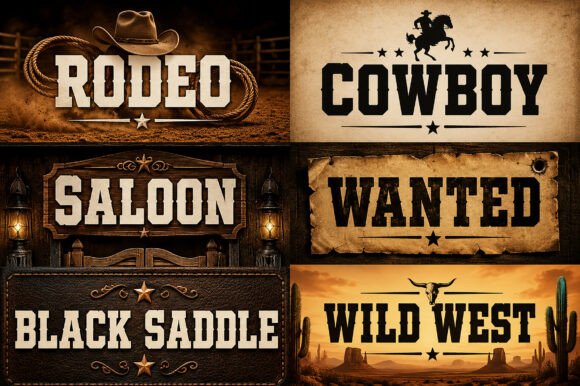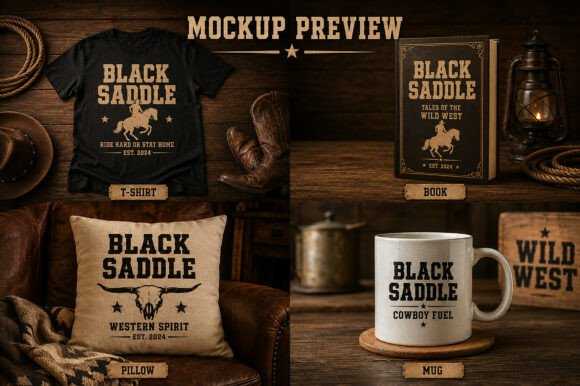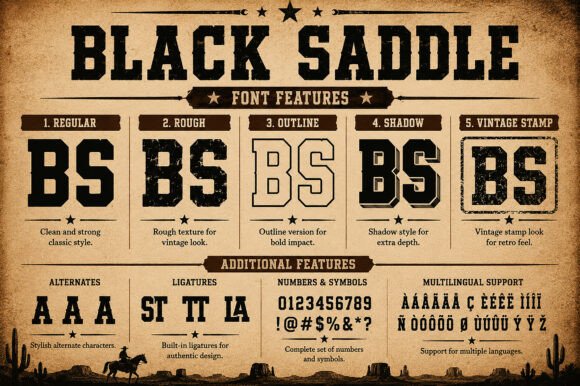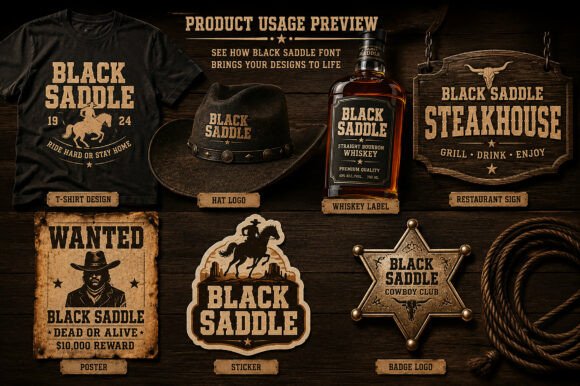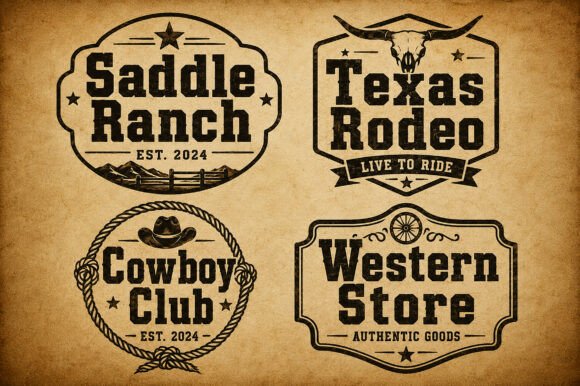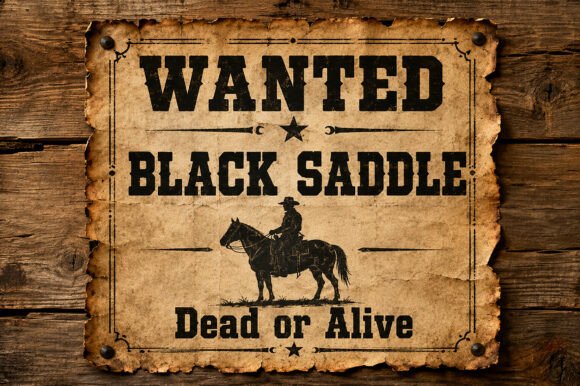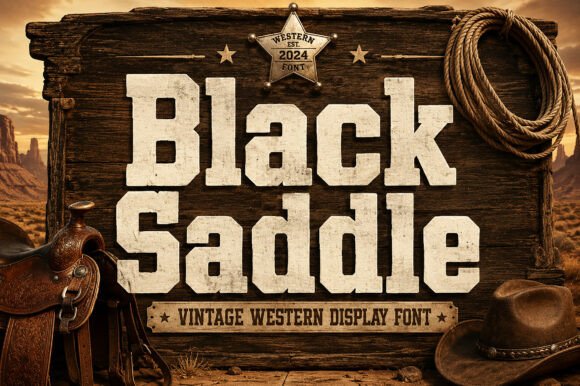
Ride into the Frontier of Bold Design with Black Saddle Font
Are you looking for a typography that screams ruggedness, adventure, and boldness? Look no further than the Black Saddle font, a heavy-duty vintage Western display font that’s built for maximum impact. Inspired by classic wild west saloon signs, cowboy heritage, and wood-carved typography, this typeface is perfect for designers and crafters who want to add a touch of timeless grit to their projects.
The Inspiration Behind Black Saddle
Black Saddle font draws its inspiration from the American Wild West, where saloon signs, cowboy boots, and rugged landscapes reigned supreme. The font’s chunky block silhouette and sharp, angular western spurs are reminiscent of the classic typography found on old west signs, while its cracked, weathered texture mimics the look of aged leather and sun-bleached desert wood.
A Font that Commands Attention
Black Saddle font features a massive visual weight and high-contrast structural lines, making it a typeface that commands attention instantly. Its bold design is perfect for headings, titles, and signage, where you want to make a statement and grab people’s attention. Whether you’re designing a logo for a western clothing line, creating signage for a rustic steakhouse, or packaging a country music album, Black Saddle font is the perfect choice.
Perfect for Western-Inspired Projects
Black Saddle font is the ultimate creative asset for designers and crafters working on western-inspired projects. Its rugged, bold design makes it perfect for:
- Western clothing lines: Add a touch of authenticity to your brand with a font that’s inspired by the Wild West.
- Custom leathercraft branding: Black Saddle font is perfect for creating bold, eye-catching logos for custom leathercraft businesses.
- Rustic steakhouse signage: Create signage that stands out with a font that’s inspired by the classic typography of the Wild West.
- Country music album packaging: Add a touch of ruggedness to your album packaging with a font that’s perfect for country music.
- Adventure event posters: Create posters that stand out with a font that’s inspired by the great outdoors.
- Bold apparel printing: Use Black Saddle font to create bold, eye-catching designs for apparel that makes a statement.
Key Features of Black Saddle Font
So what makes Black Saddle font so special? Here are some of its key features:
- Extra-chunky block silhouette: Black Saddle font features a bold, chunky design that’s perfect for making a statement.
- Sharp, angular western spurs: The font’s sharp, angular spurs add a touch of ruggedness and authenticity to its design.
- Cracked, weathered texture: The font’s cracked, weathered texture mimics the look of aged leather and sun-bleached desert wood.
- Massive visual weight: Black Saddle font has a massive visual weight that commands attention instantly.
- High-contrast structural lines: The font’s high-contrast structural lines add depth and dimension to its design.
Get Ready to Ride into the Frontier of Bold Design
If you’re looking for a font that’s bold, rugged, and perfect for western-inspired projects, look no further than Black Saddle font. With its chunky block silhouette, sharp angular spurs, and cracked, weathered texture, this typeface is sure to add a touch of timeless grit to your designs. So why wait? Get ready to ride into the frontier of bold design with Black Saddle font.